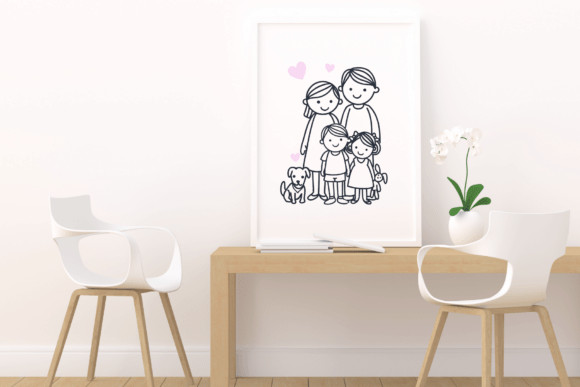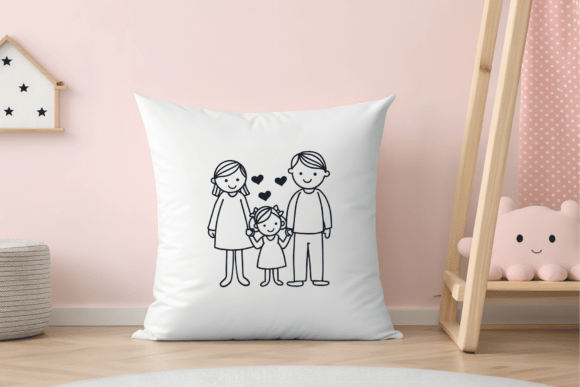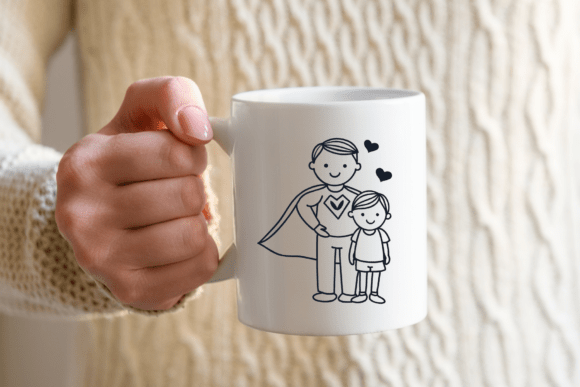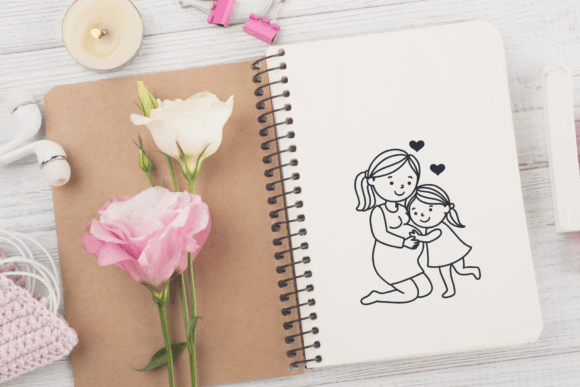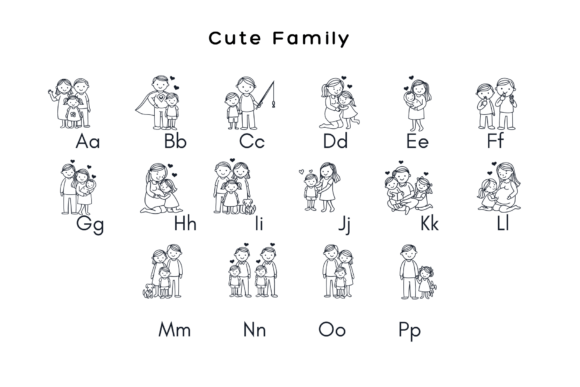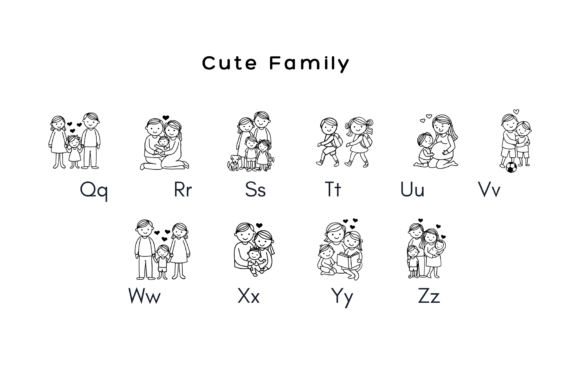
Adding a Touch of Whimsy to Your Designs
Have you ever been brainstorming ideas for a baby shower invitation or a family reunion banner, only to feel stuck on how to convey the love and joy of the occasion? That’s where the Cute Family Doodles Font comes in – a charming collection of hand-drawn family illustrations that are sure to bring a heart-centered touch to your creative projects.
With dozens of adorable icons representing different family dynamics, this Dingbats font is a must-have for designers who specialize in family-oriented products and events. Each character is designed with a consistent, whimsical line-style that makes it easy to incorporate into any design, from scrapbooking to nursery decor and personalized gifts.
Whether you’re looking to add a playful accent to your designs or create a warm and inviting look, the Cute Family Doodles Font is the perfect companion to help you bring your ideas to life.
Cute Family Doodles Font Key Features
- Unique Characteristics: The font features hand-drawn doodles of family-related icons, adding a playful and whimsical touch to any design.
Cute Family Doodles Font Review
I recently had the chance to play around with the Cute Family Doodles Font, and I must say, it’s a delightful addition to any design project. Here’s what I think:
- Expressive Characters**: The font’s whimsical doodle style brings a sense of playfulness to any text. It’s perfect for family-related projects, children’s books, or even social media graphics.
- Variety of Glyphs**: The font includes a wide range of characters, including punctuation marks, numerals, and even some fun doodle elements like speech bubbles and stars.
- Legibility**: Despite its playful nature, the font remains easy to read, making it suitable for body text as well as headings.
- Limited Font Weight Options**: The font only comes in a single weight, which may limit its versatility in certain design contexts.
- No Italic or Oblique Styles**: While the font is available in regular and bold weights, it would be great to have italic or oblique styles for added visual interest.
Overall, I think the Cute Family Doodles Font is a charming addition to any designer’s toolkit. Its expressive characters and wide range of glyphs make it perfect for family-related projects or anything that needs a playful touch. While it may have some limitations, the font’s unique style and ease of use make it a worthwhile investment for designers looking to add some whimsy to their work.
Getting the Most Out of Cute Family Doodles Font
Some tips to get the most out of Cute Family Doodles Font include:
- Using it for family-related designs, such as invitations, cards, and social media graphics.
- Combining it with other playful fonts to create a unique and eye-catching look.
- Experimenting with different font sizes, colors, and alignments to add visual interest.
Cute Family Doodles Font is perfect for:
- Family-related designs, such as birthday cards and invitations.
- Children’s party decorations and materials.
- Social media graphics and